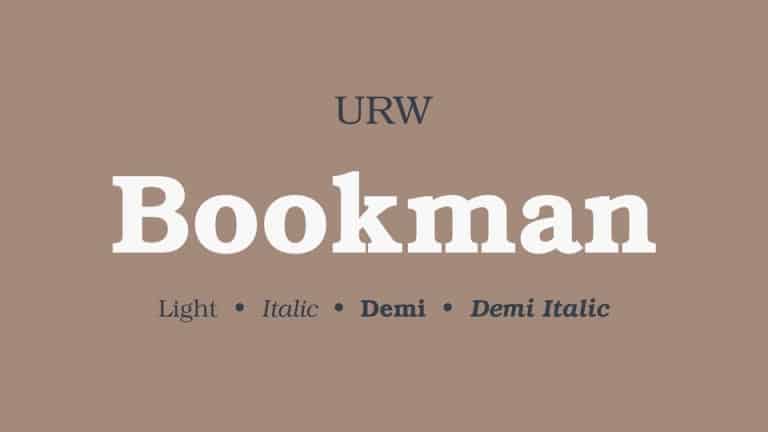
Bookman Slab Serif Font
Bookman Slab Serif Font is a bold ligature slab serif typeface. A contrast display typeface. Multilingual support, with uppercase, lowercase, numbers and punctuation.
It’s designed and shared by URW Type Foundry. URW Bookman is a transitional serif typeface with a wide, legible design that is slightly bolder than most body text faces.
It is based on the typeface designed by Ed Benguiat in 1975. Bookman Slab Serif Font comes in Light and Demi weights, including corresponding Italics, supports Latin, Cyrillic and Greek languages.